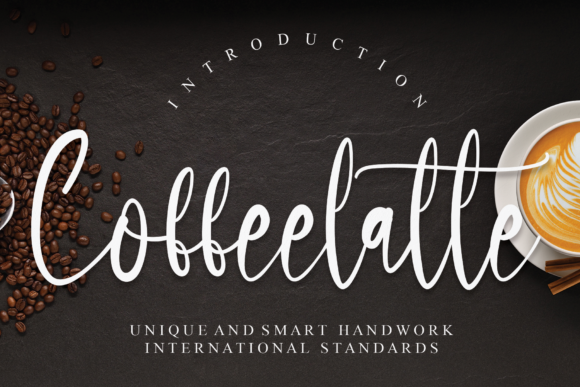
The Perfect Brew for Your Creative Projects
Have you ever been brainstorming a new idea and suddenly, a spark of creativity hits you? The words start flowing, and your imagination runs wild. That’s exactly what happened to me the last time I was working on a project – I had the perfect concept, but I needed the right tool to bring it to life. That’s when I stumbled upon the Coffeelatte Font, and it was love at first sight!
This elegant handwritten font is more than just a pretty face; it’s a game-changer for designers. With its unique, flowing style, it adds a touch of sophistication to any project, making it truly unforgettable. Whether you’re a seasoned pro or a budding designer, the Coffeelatte Font is an absolute must-have in your toolkit.
Coffeelatte Font Key Features
- Unique Characteristics: Coffeelatte Font features a unique blend of modern and vintage elements, with intricate details and subtle texture, adding a touch of sophistication to any design.
Coffeelatte Font Review
Overall, I was quite impressed with the Coffeelatte Font. Here are some of its strengths: ✨
- The font has a unique and modern aesthetic that can add a touch of sophistication to any design.
- It’s highly versatile and can be used in a wide range of applications, from digital interfaces to print materials.
- The font is well-designed for readability, making it perfect for body text and paragraphs.
- The font has a large character set, including many international characters and symbols.
- The font may be too ornate for some designs, making it difficult to read in certain contexts.
- The font lacks a clear hierarchy of weights, making it difficult to create a cohesive design with different font weights.
- The font may not be suitable for small text sizes, as it can become difficult to read.
Overall, I would give the Coffeelatte Font a solid 4 out of 5 stars. It’s a great addition to any designer’s toolkit, but it’s not perfect. With some careful consideration of its strengths and limitations, I think it can be a valuable asset in many design projects.
The Coffeelatte Font is perfect for:
- Creating visually appealing headings and titles
- Adding a touch of personality to presentations and documents
- Designing custom graphics and typography-based designs
Alternatives to Coffeelatte Font for Designers
Great Vibes Font is a modern script font perfect for creating a friendly and approachable atmosphere. It’s ideal for use in branding, advertising, and editorial design.
Compared to Coffeelatte Font, Great Vibes Font has a more relaxed and casual feel, making it suitable for a wider range of design applications.